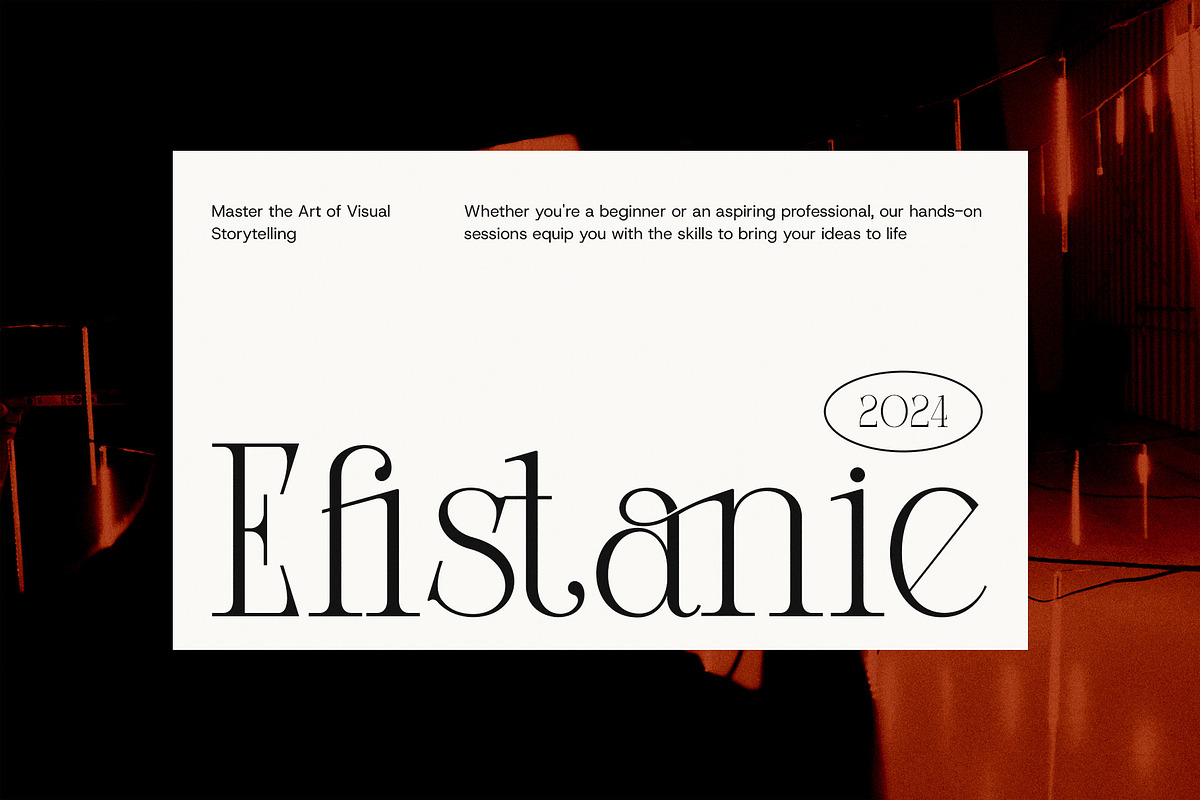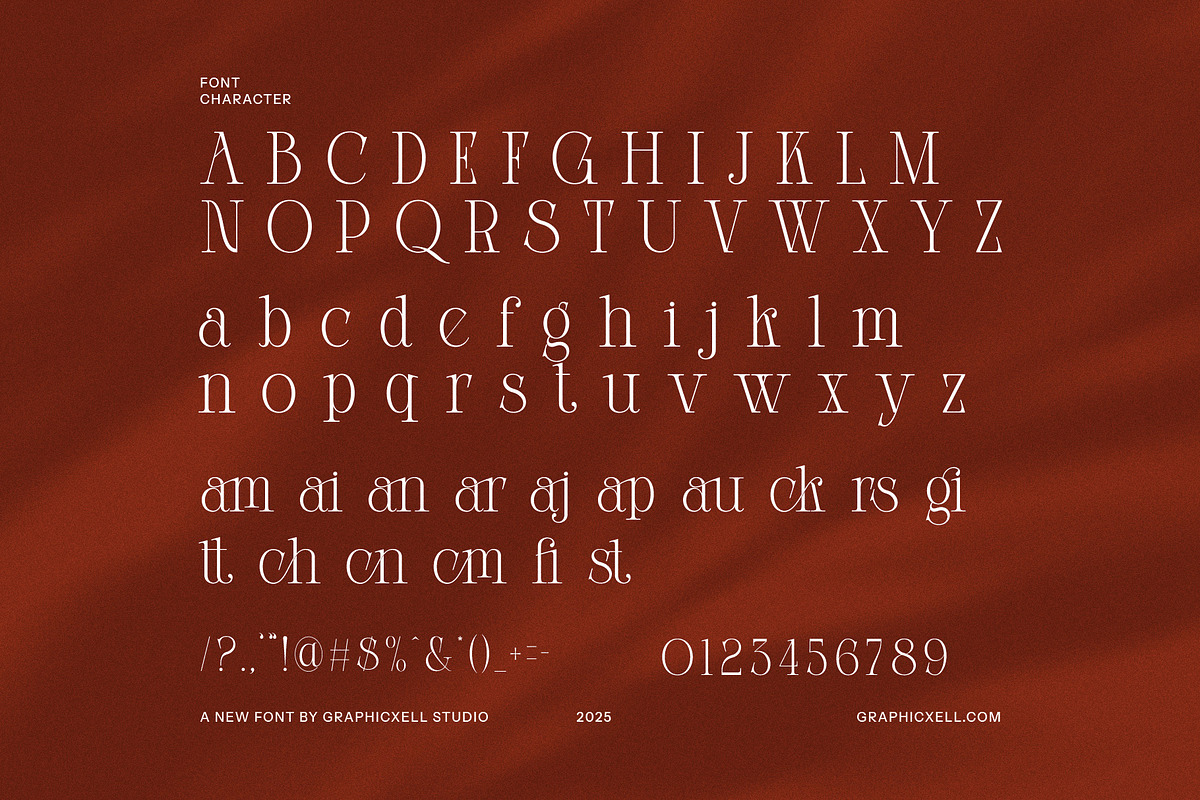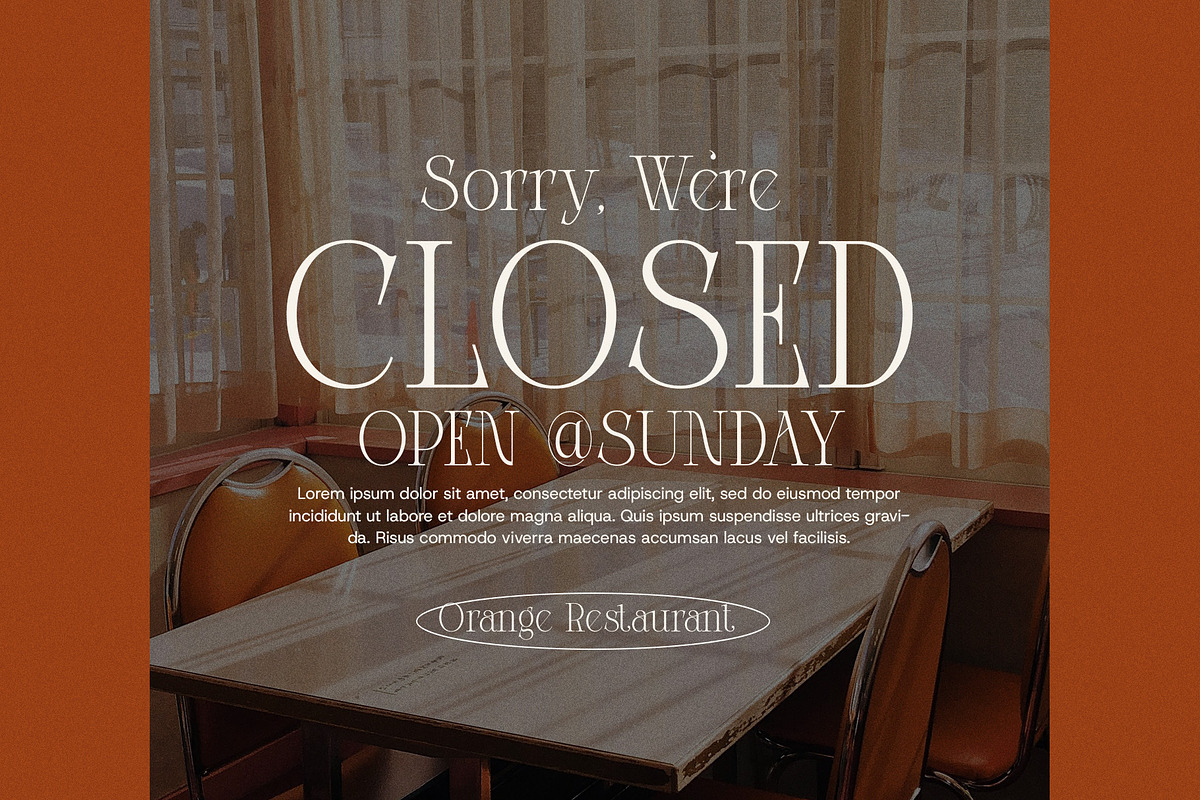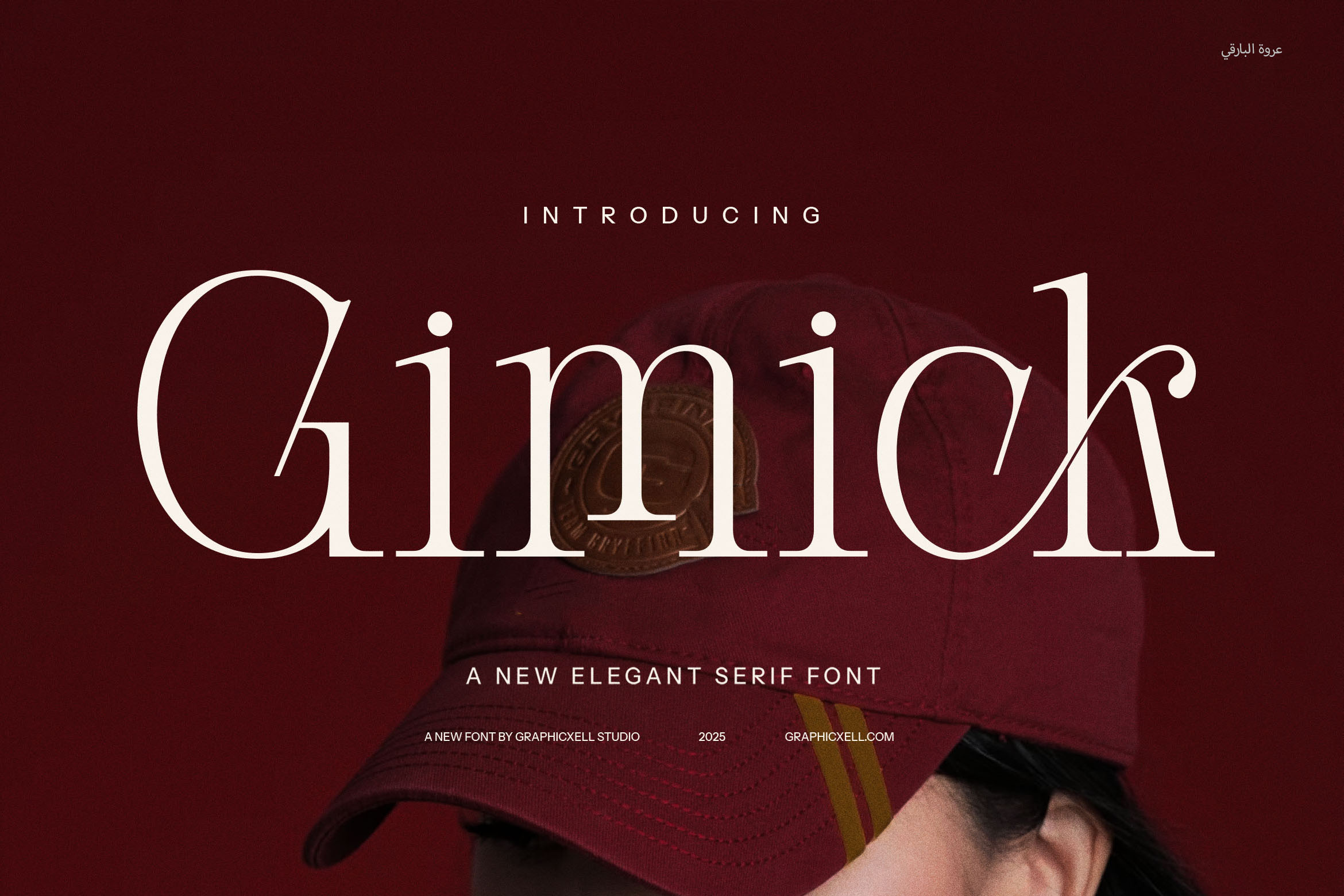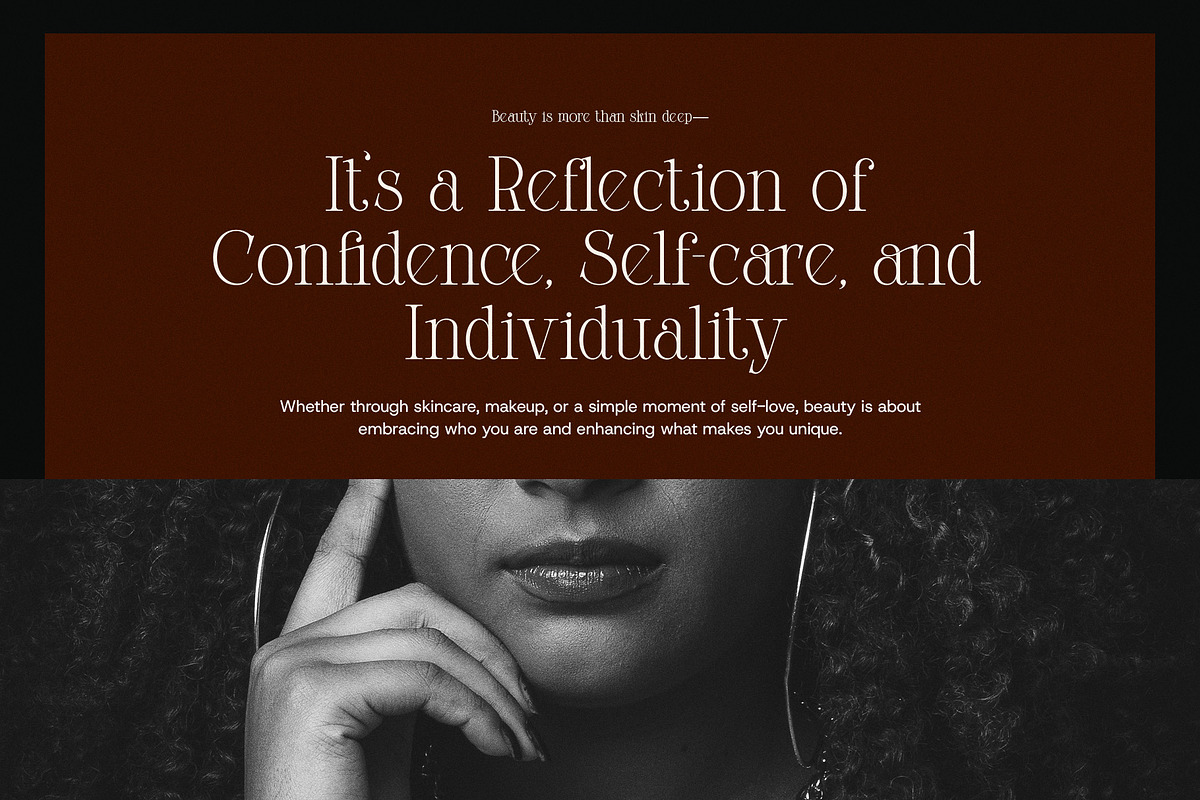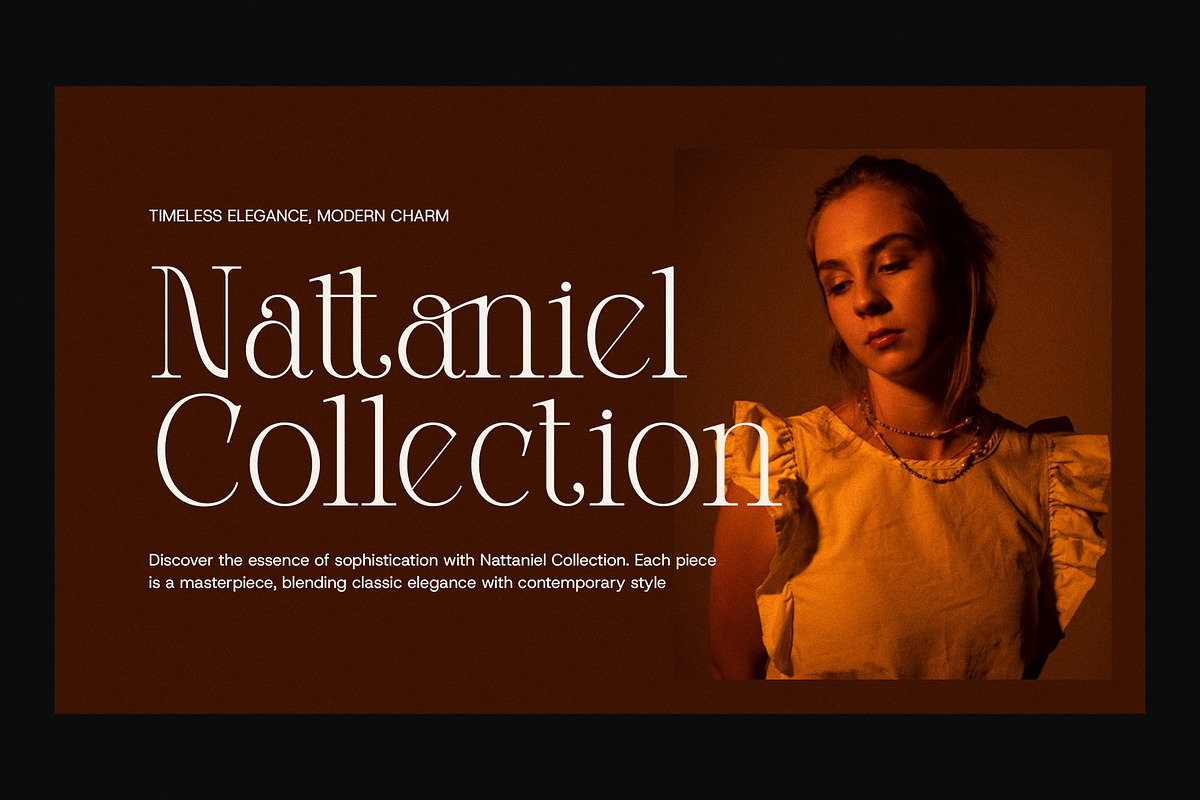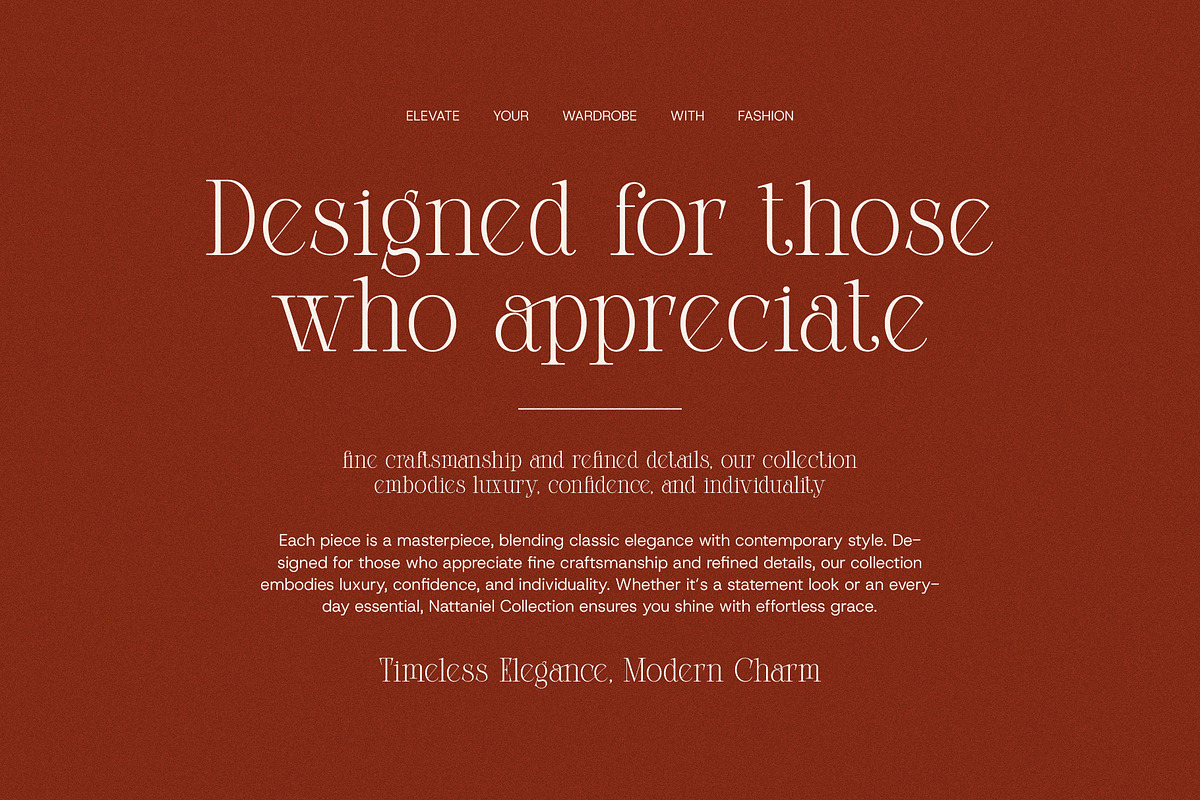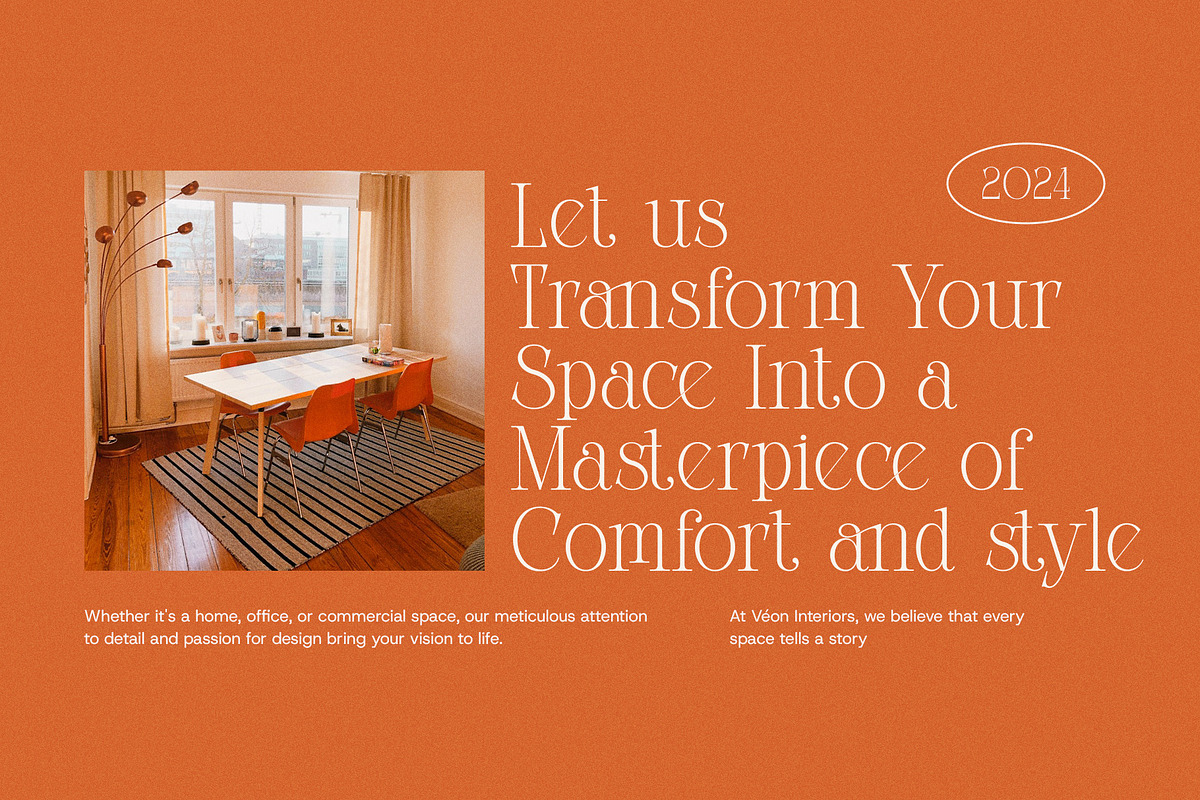
Gimick Ligature Serif Font
Introducing Gimick Ligature Serif Font, a modern and sophisticated serif typeface that seamlessly blends elegance with creativity. Designed for those who appreciate refined style, this font is perfect for adding a touch of class to your projects. Its unique ligatures and thoughtfully crafted alternates provide a distinct personality that stands out in any design.
Gimick Ligature Serif Font is ideal for a wide range of uses, from creating unforgettable logos to designing impactful branding. The smooth, flowing ligatures and graceful serifs elevate your work, making it perfect for websites, magazines, advertisements, and high-end product packaging. Whether you're designing for boutiques, restaurants, or luxury brands, this font adds a refined, polished look that speaks to your audience with sophistication.
The versatility of this font allows it to shine in both print and digital formats. Its charming ligatures create a harmonious flow of letters, ensuring that each design feels cohesive and thoughtfully crafted. Gimick Ligature Serif is also suitable for editorial layouts, posters, and invitations, providing a unique, upscale aesthetic that works across various industries.
With its contemporary feel and timeless charm, the Gimick Ligature Serif Font is a must-have for designers looking to make an impression. It’s not just a font; it’s a design tool that enhances the personality of your brand or project. Add a touch of elegance and creativity to your next project with Gimick Ligature Serif Font.